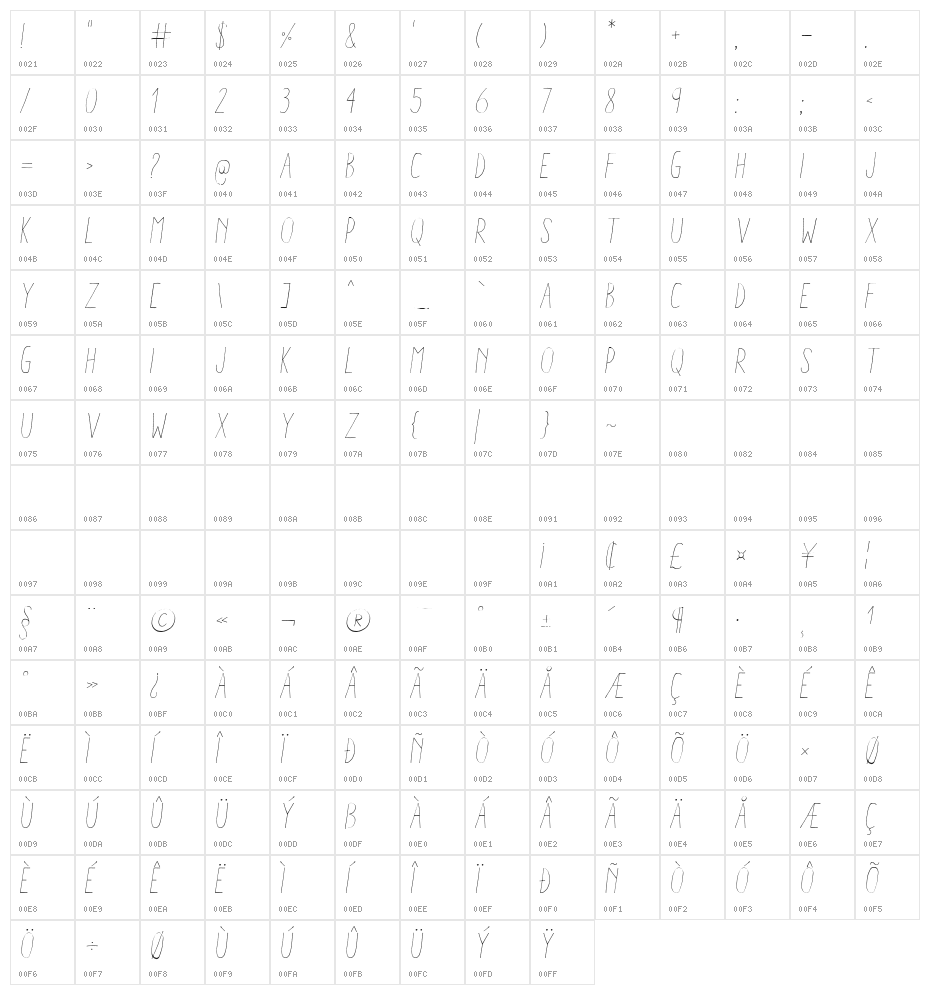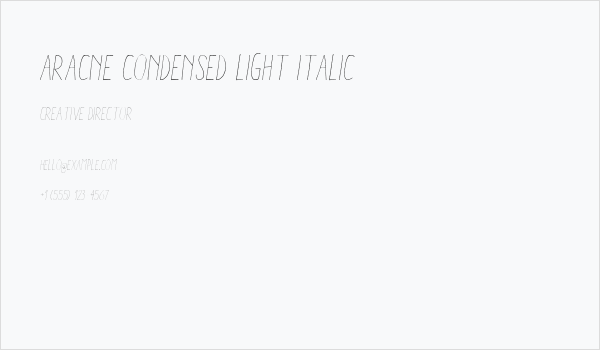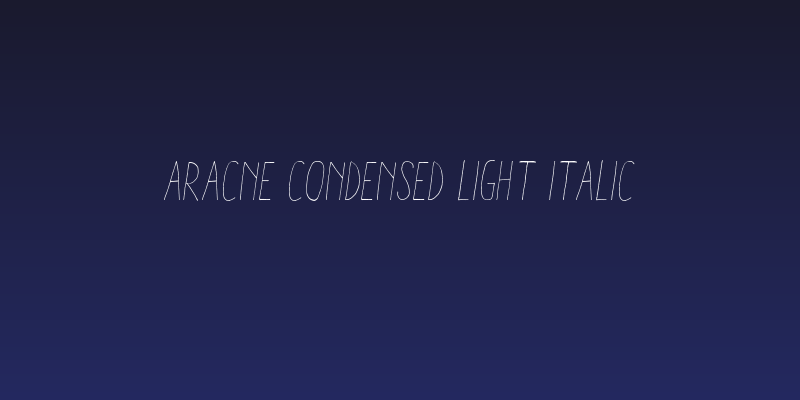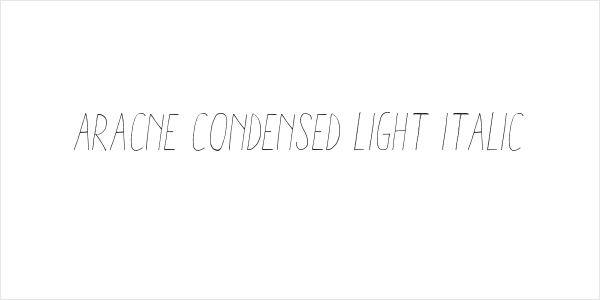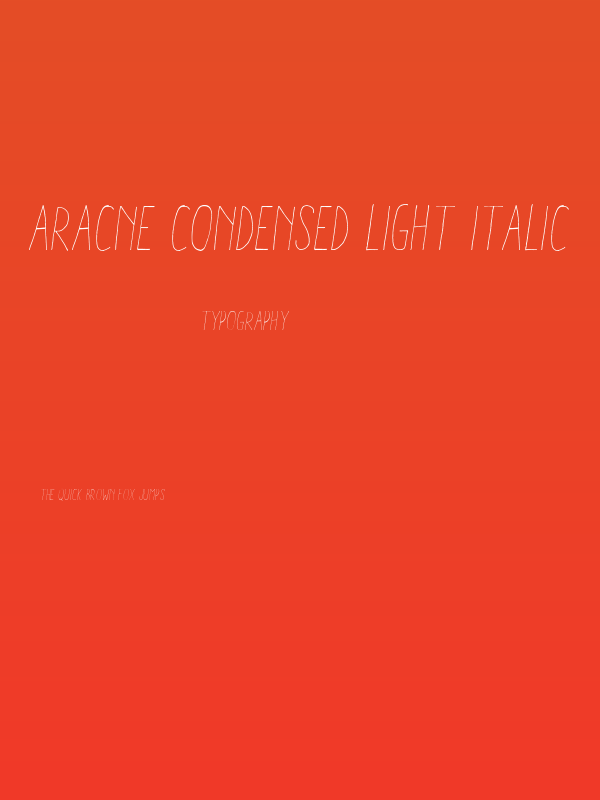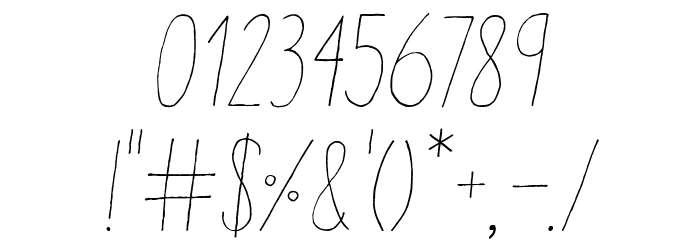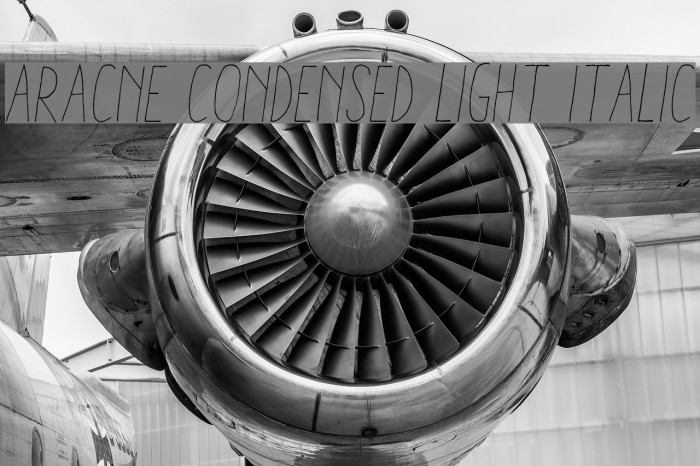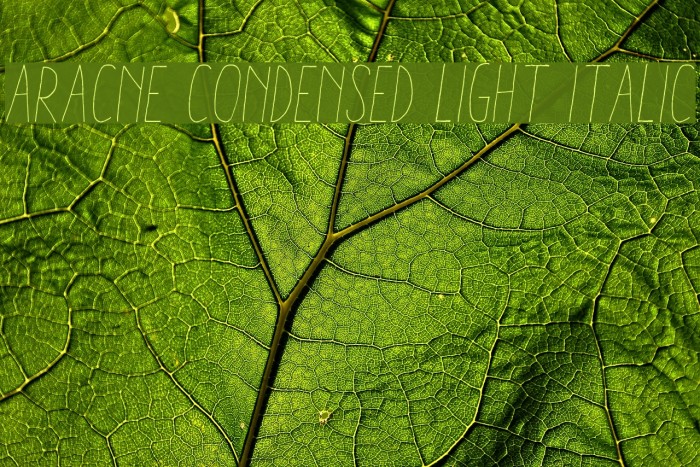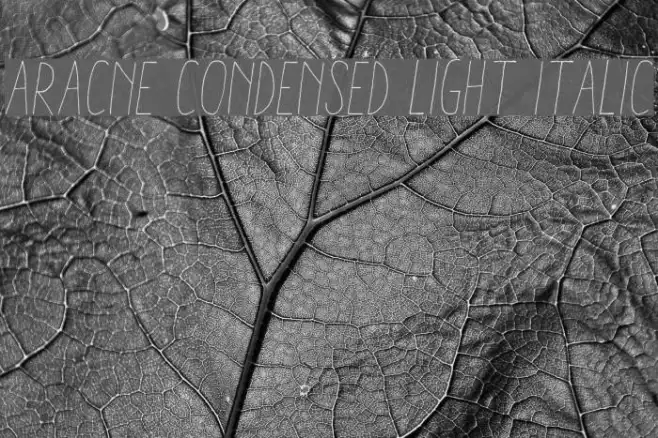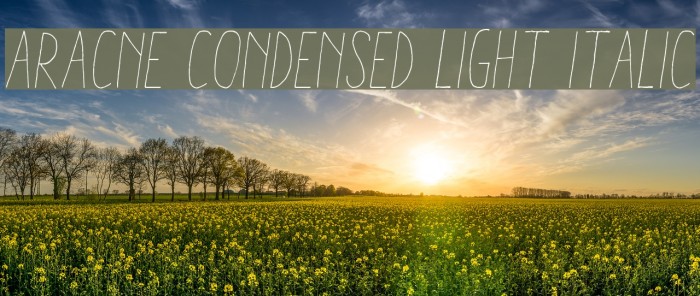
Aracne Condensed Light Italic Font
| Proyectos propuestos | Ideal for fashion magazines, elegant invitations, branding for luxury products, and artistic posters. |